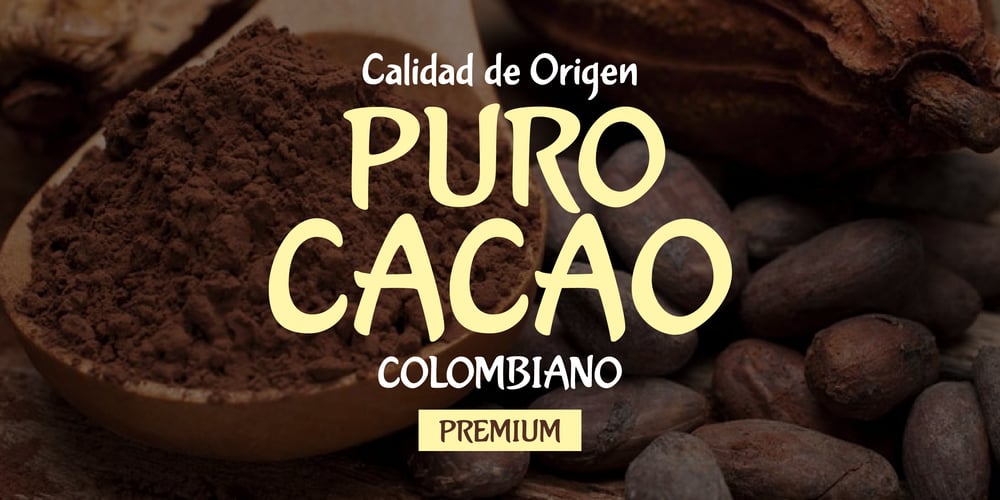
Avellana Pro
Avellana Pro font
Avellana Pro Font Family was designed by Alejandro Paul, Angel Koziupa and published by Sudtipos. Avellana Pro contains 1 styles and family package options. When it comes to packaging or friendly logotypes, subtle designs are never enough. Avellana Pro is a bit wild but also smooth and creamy for that ultimate client seduction. From headlines to small text, the possibilities are endless with versatile new font. The majority of Latin languages are covered in this Pro version.